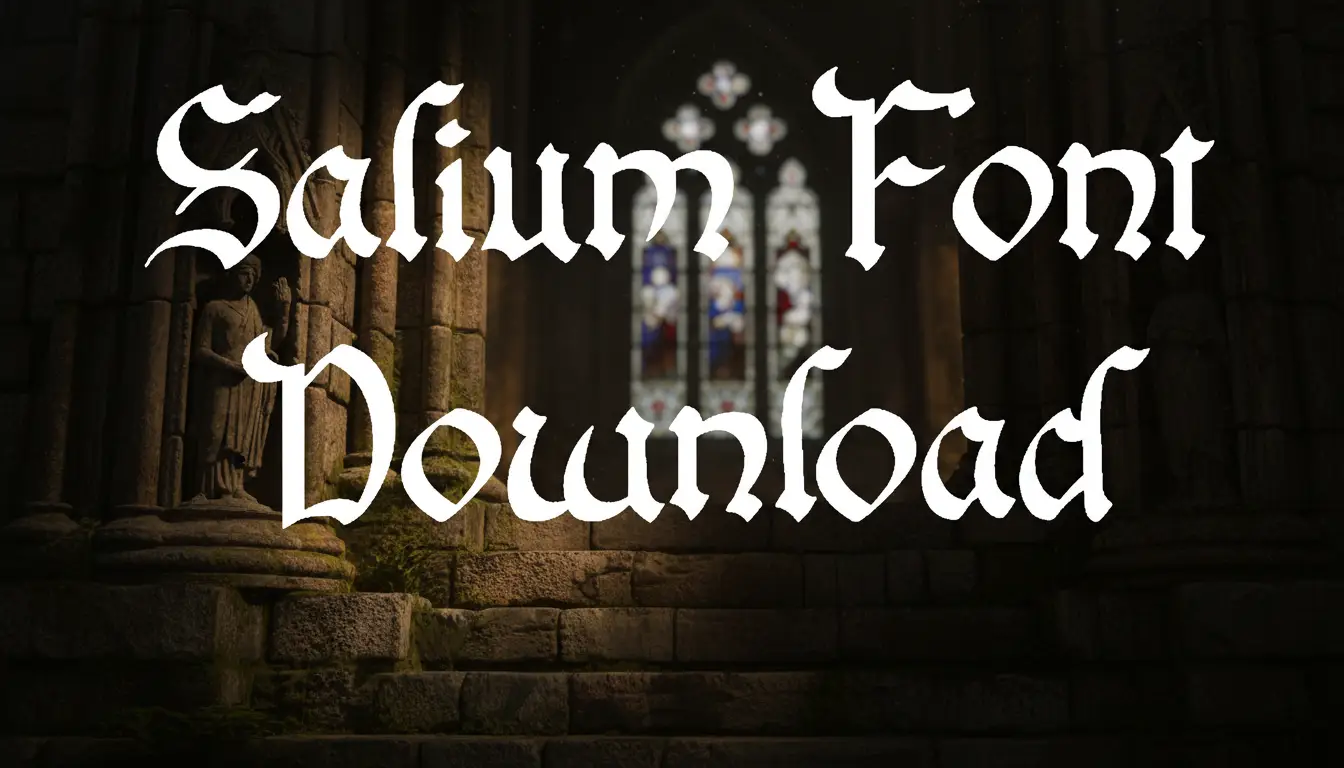
Salium Font
Salium
Salium is a gothic font designed by fgstudios. Its pointed, heavy strokes give it a dark, dramatic blackletter look. You can download it for free and test it with your own words in the preview above.
You get every letter from A to Z in both cases and all the numbers from 0 to 9, which means Salium can handle full sentences, dates and prices. Common punctuation such as &, !, ? and @ is included as well. It doesn't include accented letters such as é or ñ, which makes it an English-only font.
Salium is a natural fit for tattoos, metal band logos and dark fantasy titles. Blackletter is very hard to read in all caps, so type in normal upper and lowercase.
No. Salium has no accented letters such as é, ñ or ü, so it's best for English text.